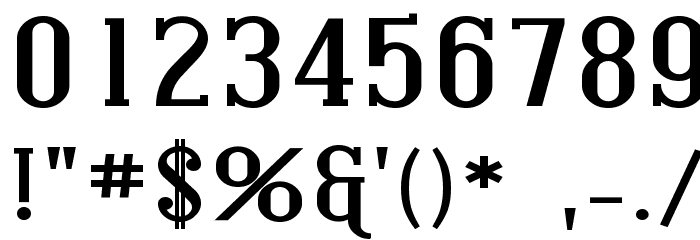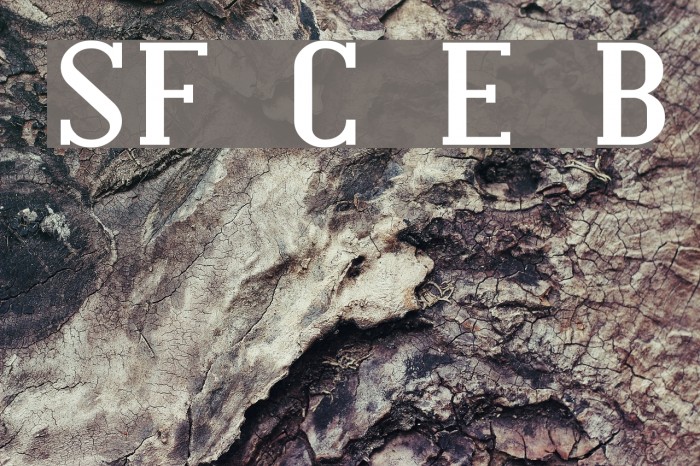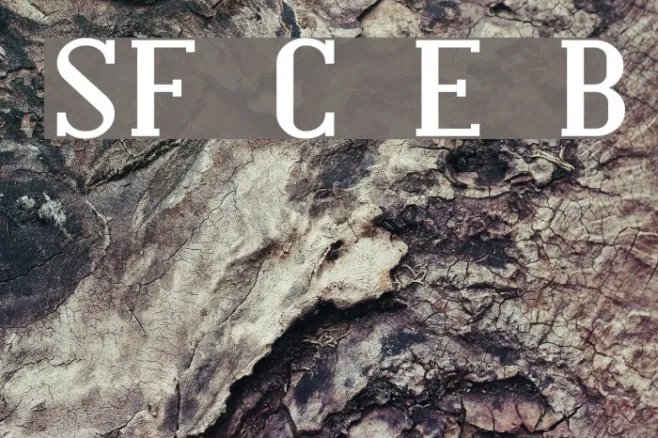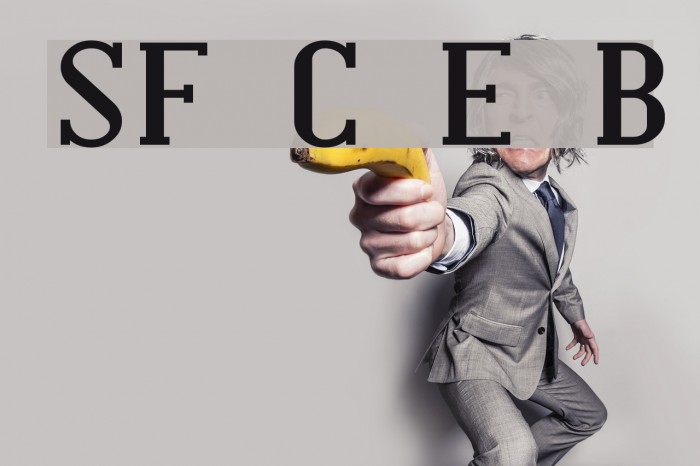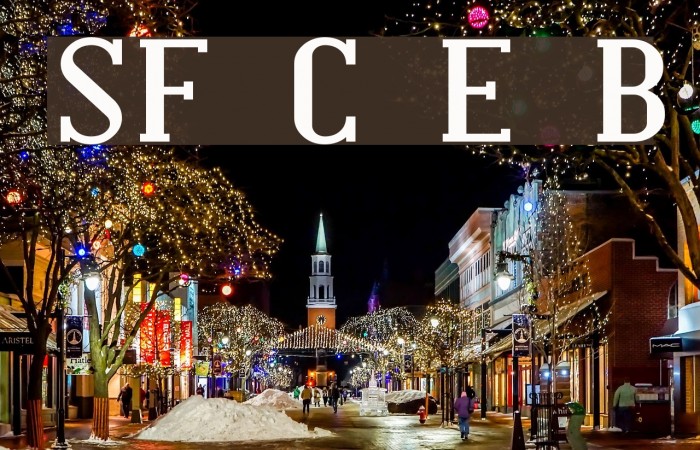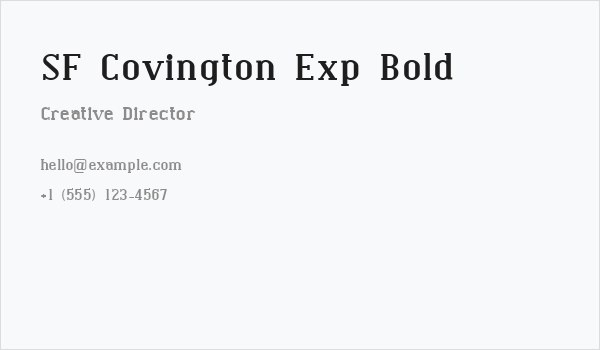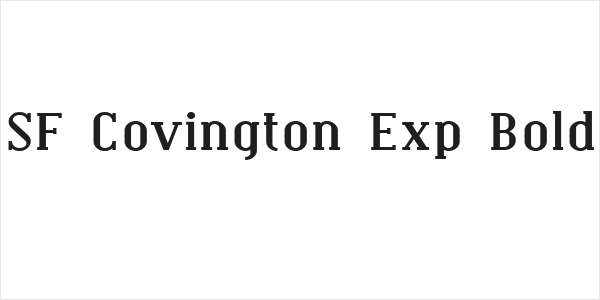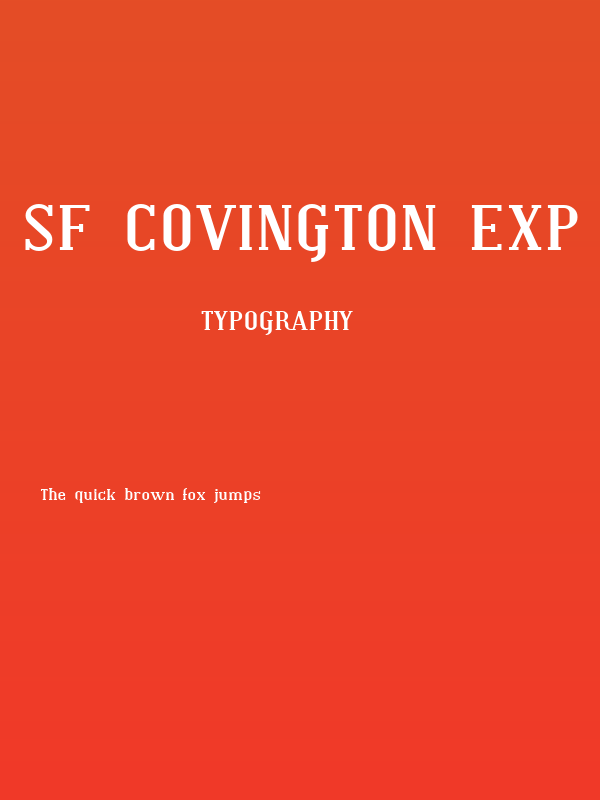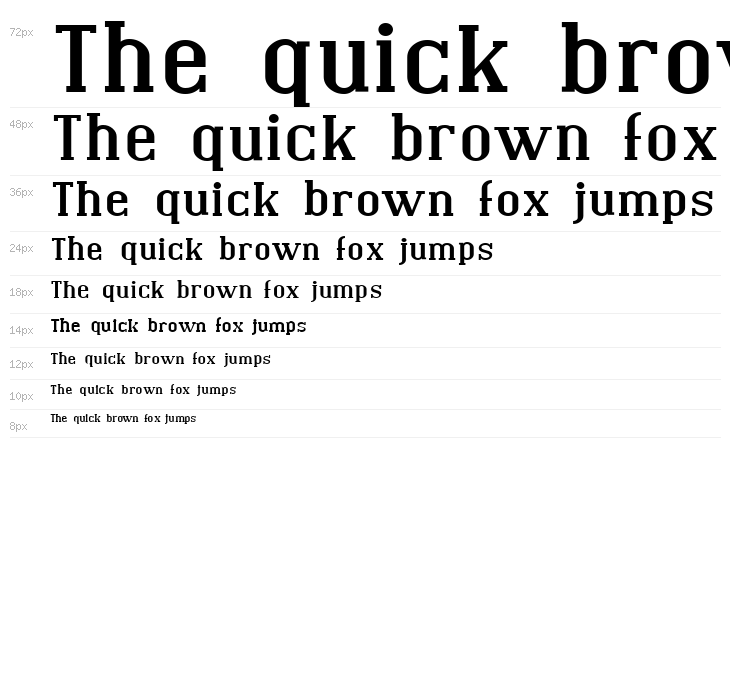
SF Covington Exp Bold Font
SF Covington Exp Bold Description
This font features a bold and expressive style with a strong presence. The uppercase letters are tall and commanding, while the lowercase letters maintain a consistent and readable form. The numerals are clear and distinct, making them suitable for various applications. The special characters are well-defined, adding versatility to the font. The overall design is modern with a touch of classic elegance, making it suitable for both contemporary and traditional projects.
WidthExpanded
Character SpacingMonospaced
ContrastMedium
Overall StyleModern
Use CaseHeadlines, Logos
Proposed ProjectsIdeal for headlines, posters, branding, and editorial design.